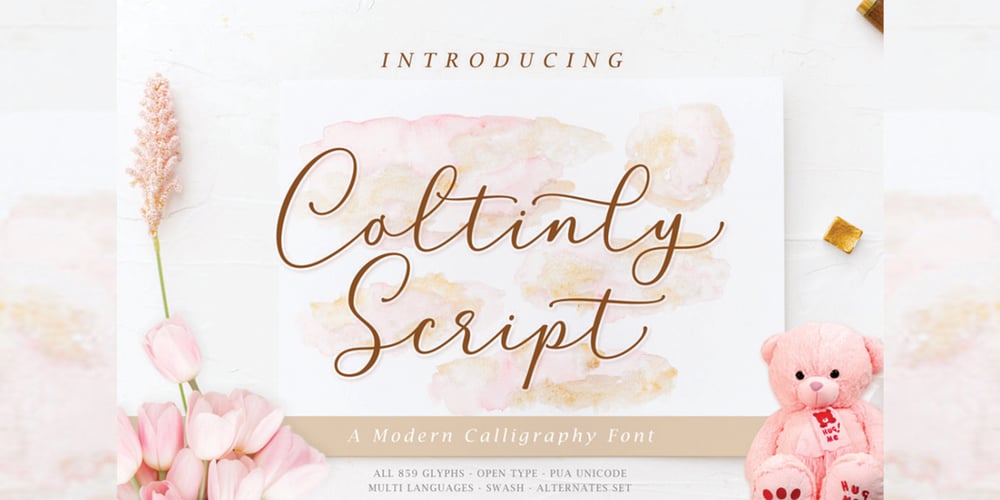
Coltinly Script Font Family was designed by Afri Giani and published by Gian Studio. Coltinly Script contains 1 styles and family package options. Coltinly is a script typeface with beautiful calligraphy and is modern with an irregular baseline. This font is suitable for a wide range of products for each project, such as wedding invitations, greeting cards, correspondence, and various other purposes and many more. This language support some international fonts, you can get unique ligatures, and font, there are 859 glyphs, so many options that you can use for your projects,Features :Initial AlternatesContextual Alternates- Standard ligatures- Unique ligatures- Stylistic Alternates- Stylistic setsBasic Latin A-Z and a-z- Numbers- International Symbols includeThank You for your purchase!